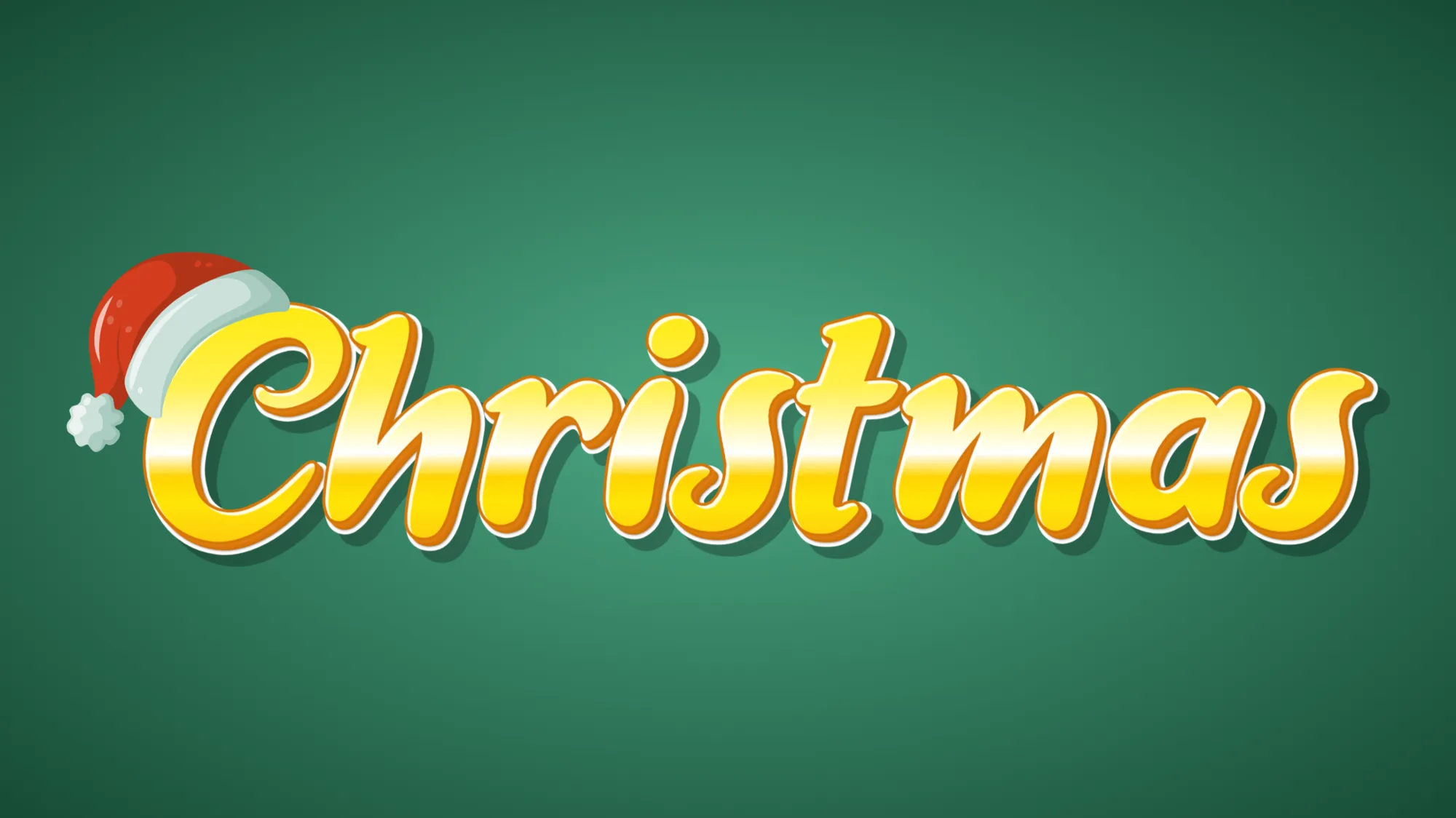
As the holiday season approaches, it's time to add a festive touch to your digital creations. Whether you're designing Christmas cards, social media posts, or holiday-themed websites, the right font and text effect can make all the difference. In this article, we'll explore how to create eye-catching Merry Christmas fonts and text effects that will bring joy to your audience.
The Magic of Christmas Typography
Typography plays a crucial role in conveying the spirit of Christmas. The right font can evoke feelings of warmth, nostalgia, and holiday cheer. Just as spooky lettering sets the mood for our Halloween fonts in October, festive typography instantly signals the warmth of the winter holidays. When combined with festive text effects, your message can truly stand out and capture the essence of the season.
Popular Christmas Font Styles
- Scripted fonts: Elegant and flowing, perfect for a touch of sophistication
- Handwritten fonts: Casual and personal, ideal for a homey feel
- Decorative fonts: Playful and whimsical, great for children's designs
- Serif fonts: Traditional and classic, suitable for formal occasions
Creating Merry Christmas Text Effects
While choosing the right font is important, adding text effects can elevate your design to the next level. Here are some popular Christmas text effects you can easily create using TextStudio's online text effect generator:
- Snowy Text: Add a wintry touch with a snow-covered font
- Glitter Effect: Bring sparkle to your design with a glittery text effect
- Candy Cane Stripes: Incorporate the classic red and white stripes
- Icy Blue Glow: Create a cool, frosty look with a blue neon-like glow
- Golden Shimmer: Add a touch of luxury with a golden, shimmering effect
Step-by-Step Guide to Creating Christmas Text Effects
Creating stunning Christmas text effects is easier than you might think. Follow these simple steps using TextStudio.com:
- Choose a Christmas-themed text effect from the available options
- Enter your desired text (e.g., "Merry Christmas")
- Select a festive font that complements your chosen effect
- Customize colors to match your holiday theme
- Adjust size, spacing, and other parameters as needed
- Preview your creation and make any final tweaks
- Download your festive text image, ready to use in your designs
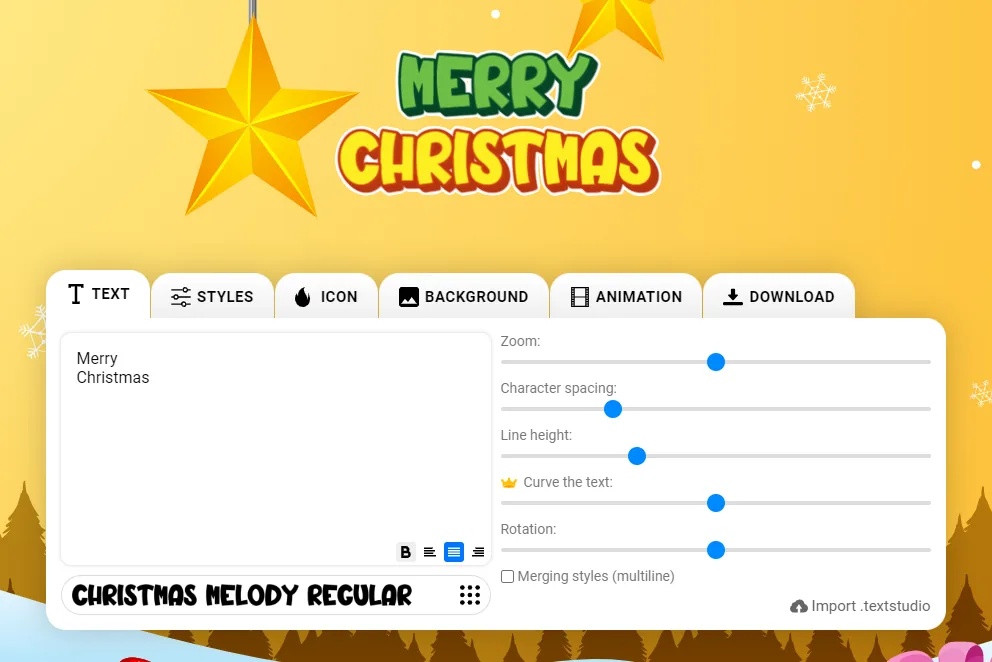
Practical Applications for Christmas Fonts and Text Effects
Now that you know how to create beautiful Christmas text, let's explore some ways to use it:
- Holiday Greeting Cards: Design personalized digital cards for friends and family
- Social Media Posts: Create engaging holiday content for your followers
- Email Marketing: Craft attention-grabbing subject lines and headers for your holiday campaigns
- Website Headers: Give your website a festive makeover with holiday-themed typography
- Product Labels: Design eye-catching labels for Christmas products or gifts
- Event Invitations: Create inviting designs for holiday parties and gatherings
The same approach carries over to other celebrations, so once you have the hang of it you can reuse it for personalized birthday card designs and other special milestones throughout the year.
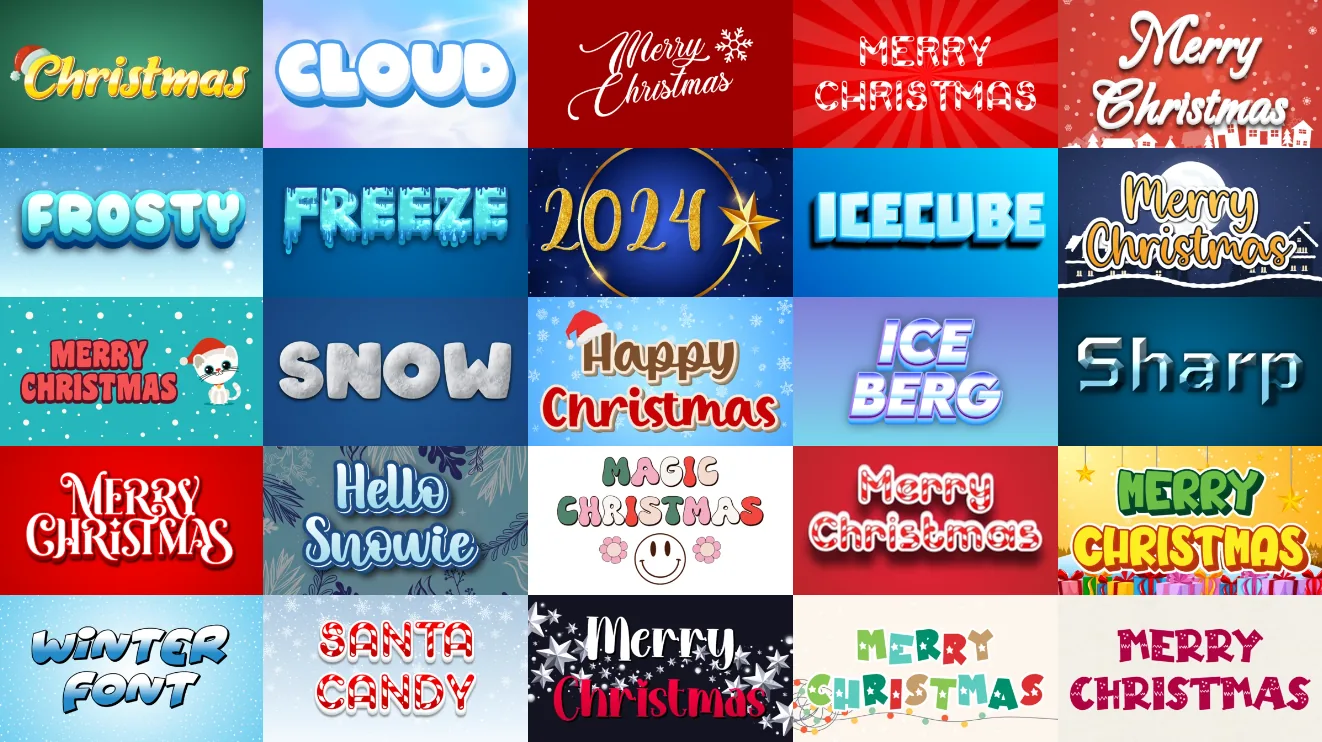
Trends in Christmas Typography for 2024
As we approach the holiday season, it's exciting to see new trends emerging in Christmas typography. Here are some popular styles to consider for your designs this year:
- Minimalist Elegance: Clean, simple fonts with subtle festive elements are gaining popularity for a modern, sophisticated look.
- Vintage Revival: Retro-inspired fonts that evoke nostalgia for Christmases past are making a comeback.
- Mixed Typography: Combining different font styles (e.g., a script font with a sans-serif) creates interesting and eye-catching designs.
- Nature-Inspired: Fonts and effects that incorporate elements like pine needles, snowflakes, or holly leaves are trending.
- Animated Text: While static images are great, animated text effects are becoming increasingly popular for digital platforms.
Stay ahead of the curve by incorporating these trends into your holiday designs. With TextStudio's versatile text effect generator, you can easily experiment with these styles and create cutting-edge Christmas typography that stands out.
Conclusion: Spread the Holiday Cheer
With the right Christmas fonts and text effects, you can create designs that truly capture the magic of the season. Whether you're a professional designer or just looking to add a festive touch to your personal projects, TextStudio's user-friendly interface makes it easy to create stunning holiday typography.
Ready to spread some holiday cheer with your designs? Head over to TextStudio.com and start creating your own Merry Christmas text effects today. With just a few clicks, you'll be on your way to designing festive content that will delight your audience and make this holiday season truly special.
Remember, the key to great holiday design is creativity and a touch of Christmas spirit. So, let your imagination run wild, and don't be afraid to experiment with different fonts and effects. Happy designing, and Merry Christmas!